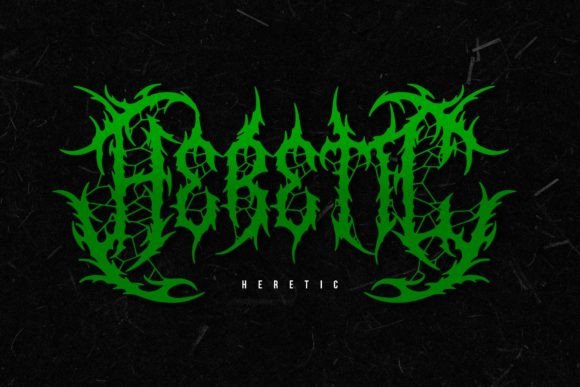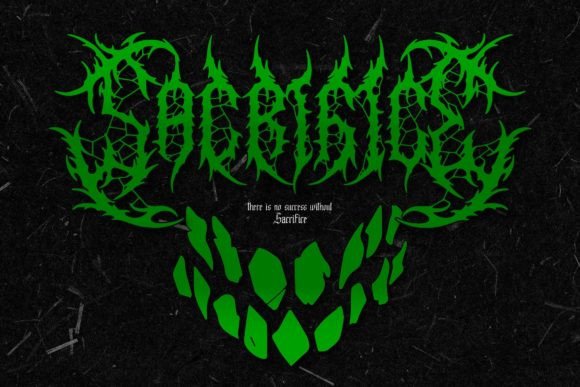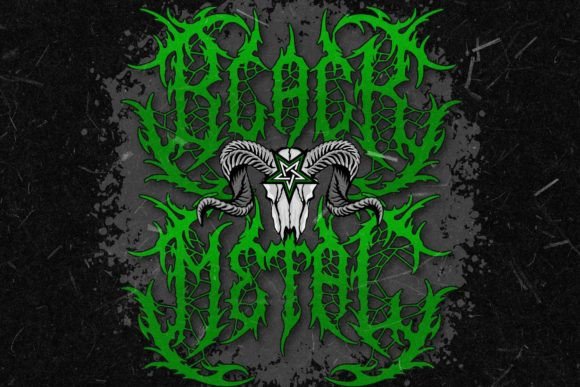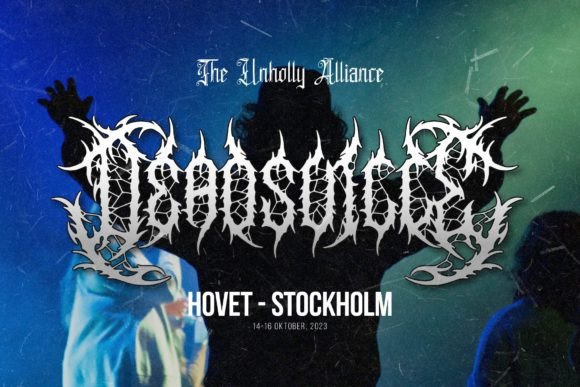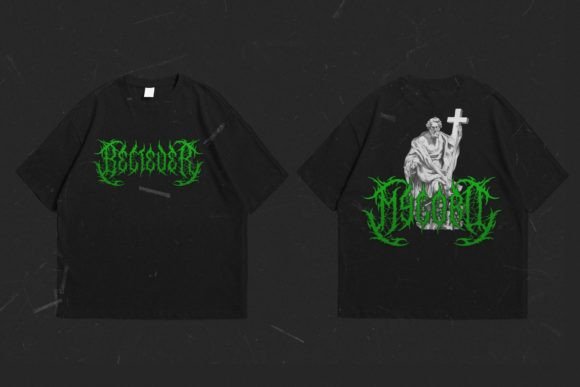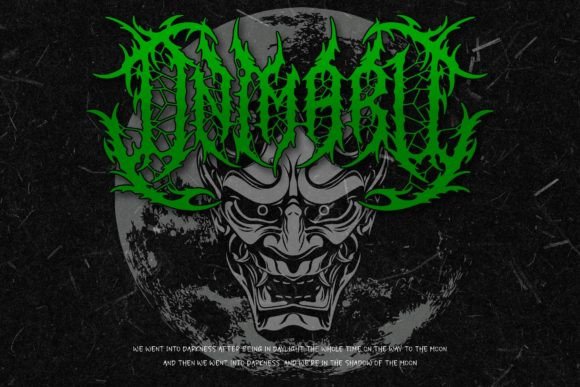
Unleashing the Dark Side: Exploring Daemonize Evils Font
In the realm of typography, fonts play a crucial role in evoking emotions and setting the tone for a design project. For those who dare to venture into the darker side of design, Daemonize Evils Font is a name that commands attention. This Black Metal font has been making waves in the design community with its sharp, jagged letters that exude an aura of mystery, power, and intensity.
The Essence of Daemonize Evils Font
Daemonize Evils Font is a Black Metal font that embodies the spirit of dark, gothic typography. Its letters are meticulously crafted to resemble sharp, jagged edges, giving off a sense of foreboding and menace. The font’s design is inspired by the dark and mysterious world of Black Metal music, where aggression and intensity reign supreme.
Daemonize Evils Font boasts several design characteristics that make it a standout in the world of typography. Some of its notable features include:
• Sharp, jagged letters: The font’s letters are designed to resemble sharp, jagged edges, giving off a sense of darkness and intensity.
• Dark and mysterious feel: The font’s design evokes a sense of mystery and foreboding, perfect for creating a dramatic and eerie effect.
• Gothic inspiration: Daemonize Evils Font draws inspiration from the world of Gothic typography, making it perfect for designs that require a dark, mystical feel.
• Powerful energy: The font’s bold, aggressive design exudes a sense of powerful energy, making it perfect for designs that require a strong, attention-grabbing presence.
Uses and Applications
Daemonize Evils Font is a versatile font that can be used in a variety of design projects, including:
• Music designs: The font’s Black Metal inspiration makes it perfect for designing album covers, posters, and other promotional materials for metal bands.
• Movie and theater designs: The font’s dark, mysterious feel makes it perfect for designing posters, flyers, and other promotional materials for horror movies, plays, and other theatrical productions.
• Graphic designs: Daemonize Evils Font can be used in a variety of graphic design projects, including logos, brochures, and other marketing materials that require a bold, attention-grabbing presence.
• Crafting and DIY projects: The font’s unique design makes it perfect for crafting and DIY projects, such as creating handmade cards, gift tags, and other paper crafts.
Tips for Using Daemonize Evils Font
To get the most out of Daemonize Evils Font, here are some tips to keep in mind:
• Use it sparingly: Due to its bold, aggressive design, it’s best to use Daemonize Evils Font sparingly to avoid overwhelming the viewer.
• Pair it with contrasting fonts: Pairing Daemonize Evils Font with contrasting fonts can help to create visual interest and add depth to your design.
• Experiment with colors: The font’s dark design makes it perfect for experimenting with bold, vibrant colors that can help to create a dramatic and eerie effect.
Daemonize Evils Font is a powerful, attention-grabbing font that is perfect for designers and crafters who dare to venture into the darker side of design. Its sharp, jagged letters and dark, mysterious feel make it perfect for creating a dramatic and eerie effect in a variety of design projects. Whether you’re designing for music, film, or other applications, Daemonize Evils Font is sure to make a lasting impression.